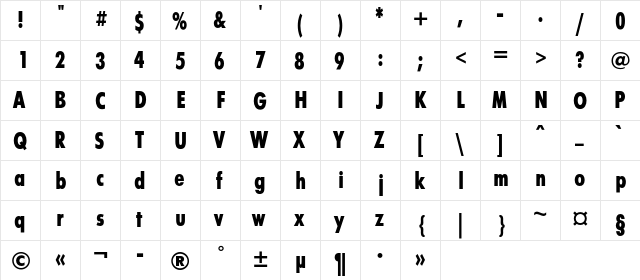
FuturaFuturisCondBoldC Regular Font Preview
Design Context for FuturaFuturisCondBoldC Typeface
FuturaFuturisCondBoldC channels digital-age aesthetics through its sharp, structured letterforms — ideal for brands that want to signal innovation. Its bold stroke weight gives it real presence on the page. The condensed width makes it efficient for tight spaces without sacrificing legibility.
Pro Tip: Use FuturaFuturisCondBoldC in combination with a neutral sans for body text. Let it define the brand voice in headlines while keeping reading comfortable elsewhere.